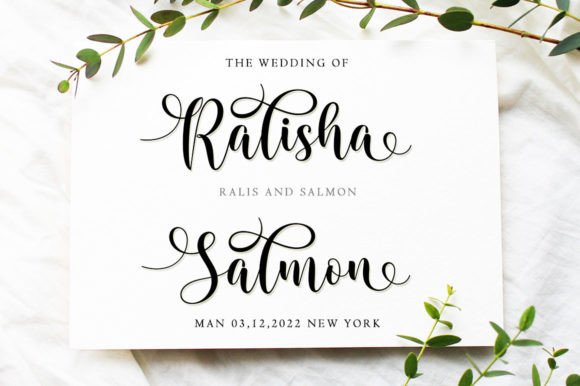
Introducing Balgen Font: The Epitome of Modern Script Elegance
In the realm of typography, few fonts manage to strike a balance between classic charm and modern sophistication. Balgen Font, however, achieves this delicate equilibrium with remarkable finesse. Designed with meticulous attention to detail, Balgen is a contemporary script font that embodies elegance, femininity, and a touch of glamour, making it an ideal choice for a wide array of design projects.
Key Features of Balgen Font
- Beautiful Character Variation: Balgen boasts a classic copper decorative script type with a modern twist. This unique blend ensures that the font stands out in any design, offering a refreshing change from the conventional.
- Elegant and Cute Style: The high level of detail in Balgen’s design presents an elegant and cute aesthetic. This makes it perfect for projects that require a touch of sophistication without compromising on charm.
- Clean and Easy to Read: Despite its ornate connections, Balgen is remarkably clean and easy to read. This feature is crucial for ensuring that the message is conveyed effectively, whether it’s in a novel, magazine, or advertisement.
- Feminine and Sensual: The luxurious letter connections in Balgen contribute to its feminine and sensual appeal. This makes it a preferred choice for designs targeting a female audience or for projects that require a touch of elegance.
- Versatility: Balgen’s classic yet modern style lends itself to a variety of applications. From formal invitations and labels to restaurant menus, logos, fashion, and makeup branding, this font adapts seamlessly to different design needs.
Celebrating Versatility: Diverse Applications of Balgen Font
One of the standout qualities of Balgen Font is its incredible versatility. Its adaptability to various design projects makes it a valuable asset for designers. Here are some ideas on how Balgen can be effectively utilized:
- Invitations and Greeting Cards: The elegant and sophisticated look of Balgen makes it perfect for wedding invitations, birthday cards, and other formal greetings.
- Branding and Logos: For businesses in the fashion, beauty, and makeup industries, Balgen offers a stylish and memorable branding solution.
- Publications: Whether it’s a novel, magazine, or book, Balgen’s readability and aesthetic appeal enhance the reading experience.
- Packaging and Labels: For product packaging or labels, Balgen provides a touch of class and sophistication, making products stand out on store shelves.
- Advertisements: In advertising, capturing the audience’s attention is crucial. Balgen’s unique charm can help create compelling ad copy that resonates with viewers.
Tips for Effective Typography with Balgen Font
To maximize the potential of Balgen Font in your designs, consider the following typography tips:
- Pairing: Experiment with pairing Balgen with complementary fonts to create visual interest. A sans-serif font can offer a nice contrast to Balgen’s script elegance.
- Sizing: Play with different sizes to emphasize headings and subheadings, ensuring a clear hierarchy in your design.
- Color: Choose colors that align with the brand’s identity or the project’s theme. Balgen’s versatility shines when used in various color schemes.
- Spacing: Pay attention to letter and line spacing to maintain readability, especially in dense text.
Balgen Font is a remarkable addition to the world of typography, offering a perfect blend of classic elegance and modern charm. Its versatility, readability, and aesthetic appeal make it an excellent choice for a wide range of design projects. Whether you’re a professional designer or a DIY enthusiast, Balgen provides the tools to create visually stunning and effective designs. Embrace the beauty of Balgen Font in your next project and experience the difference it can make.